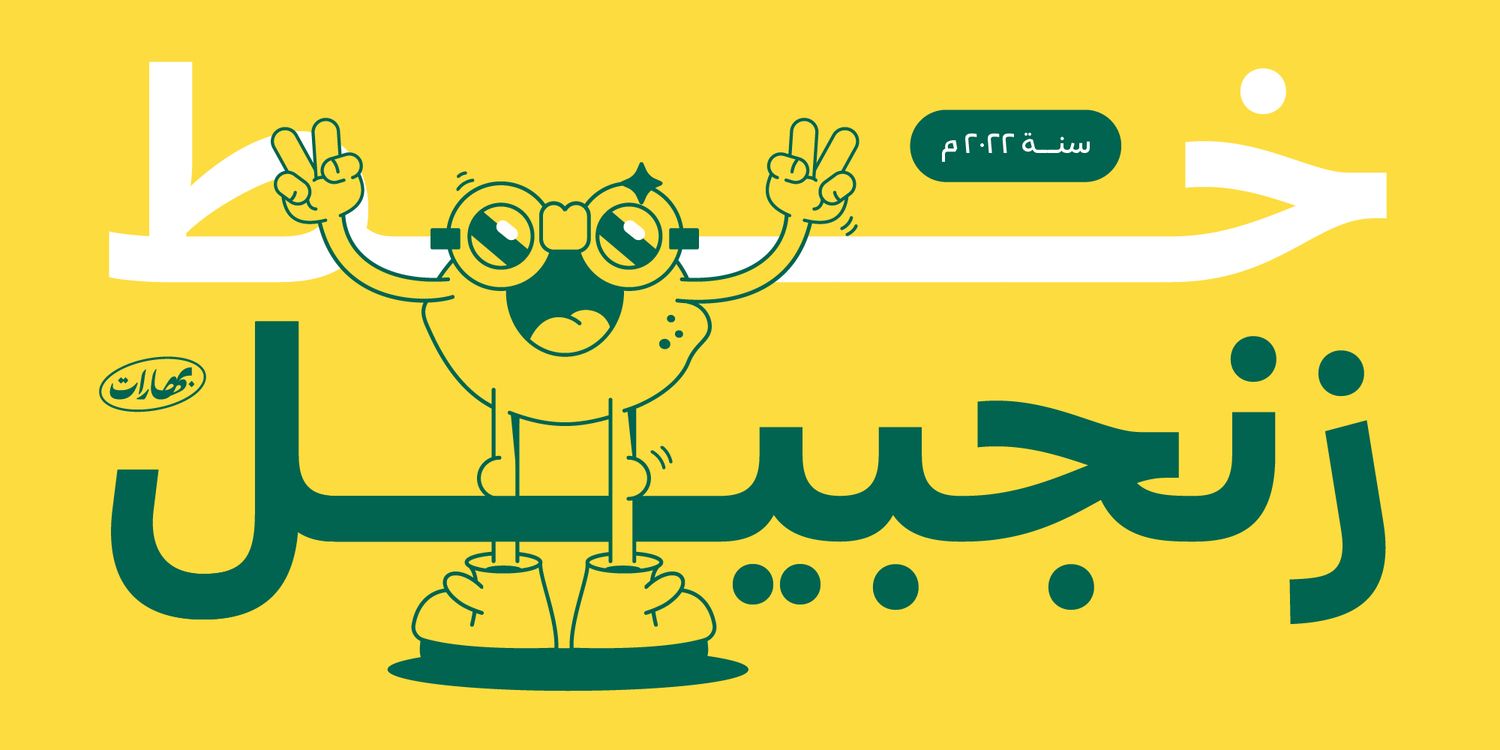
Zanjabeel is an Arabic typeface with a hybrid design between the Naskh and Modern Kufi styles, comes in 9 weights, and some italic letters that give a unique and dynamic feel.
the typeface works well with large sizes, headlines, and short text.
also, works in printing and digital uses.